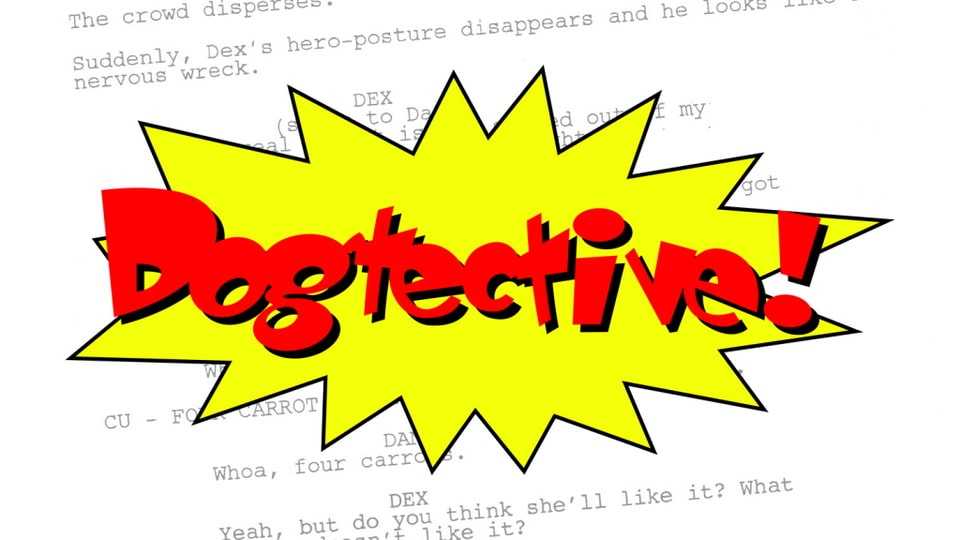
Download Dogtective font, a display typeface based on specimens from character designs for the 2012 animated film “Foodfight!” Dogtective font is perfect for projects that demand a sense of fun and imagination.